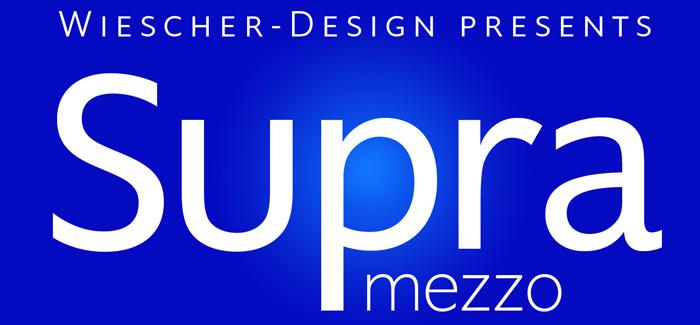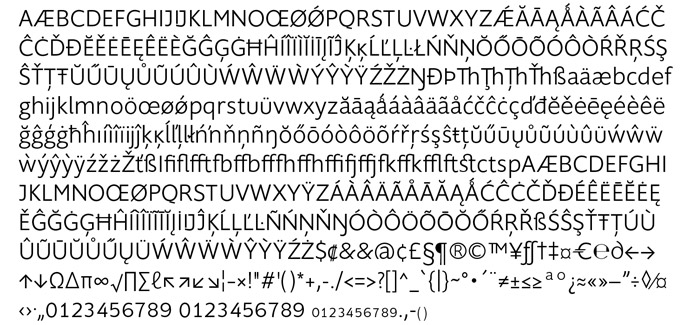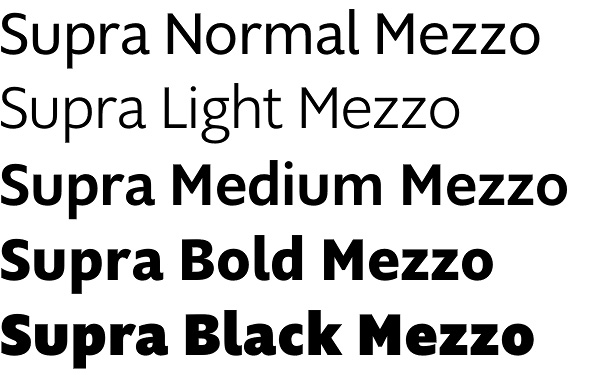
Supra Mezzo font
Supra Mezzo font is a contemporary view of the old sans typefaces. Designed by Gert Wiescher, it’s a peculiar addition to the Supra font family, halfway between the normal and the condensed width. This is very convenient when lots of text should be put into a relatively small space still retaining readability. The Supra Mezzo unique feature is its compactness with great legibility.
The light and normal weights and the dominant x-height with its high ascenders make for easy reading of long copy. The heavy and x-light weights are excellent for exquisite headings.
Supra is an OpenType family.